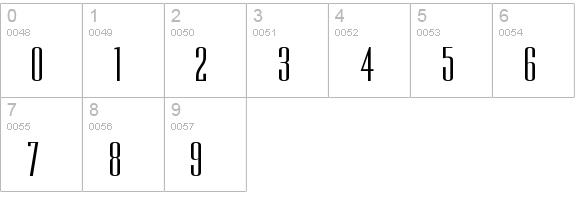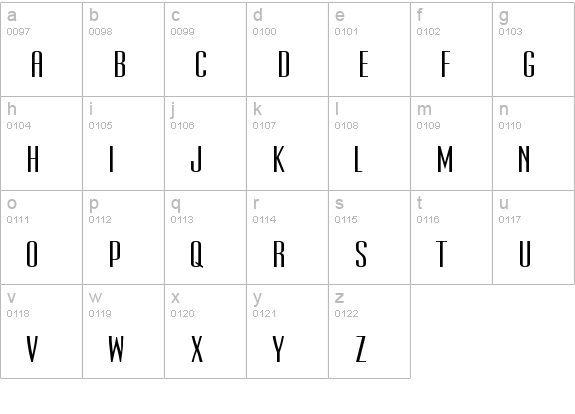
UltraCondensedSansSerif Font Details
Introducing UltraCondensedSansSerif font, a stunning and versatile typeface that effortlessly combines elegance with a modern touch. This font is perfect for a wide range of projects, from branding and advertising to editorial design and web graphics. With its sleek and minimalist design, UltraCondensedSansSerif font adds an air of sophistication and professionalism to any creative endeavor. Its condensed proportions make it ideal for saving space without compromising readability, allowing you to fit more text into your layouts without sacrificing legibility. But what truly sets UltraCondensedSansSerif font apart is its incredible versatility. Whether you're looking for a bold and impactful headline or a clean and refined paragraph text, this font has you covered. Its variety of weights and styles offer endless possibilities for customization, ensuring that your designs will always stand out from the crowd. And the best part? UltraCondensedSansSerif font is completely free! That's right, this exceptional typeface is freely available to download at FontsMarket.com. Now, you can elevate your designs without breaking the bank or compromising on quality. So why wait? Head over to FontsMarket.com and unlock the full potential of UltraCondensedSansSerif font today. Your projects will thank you.